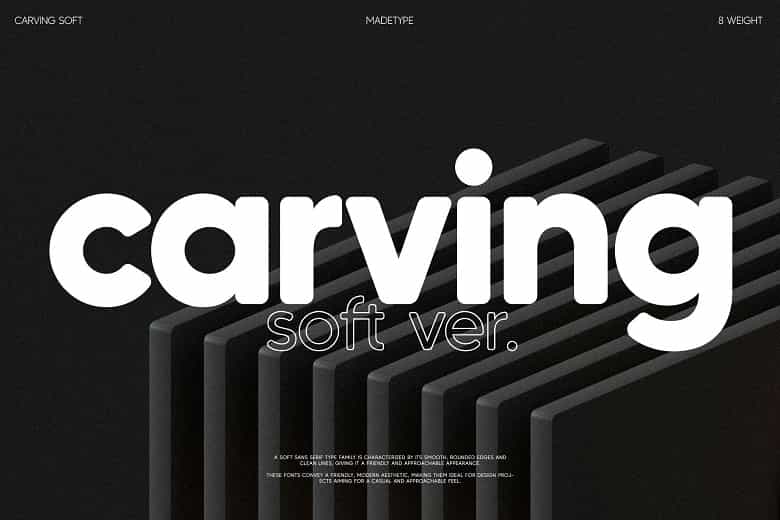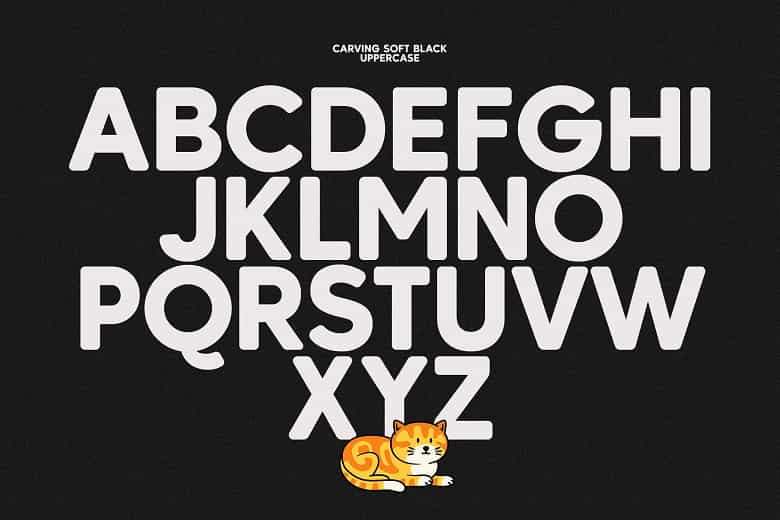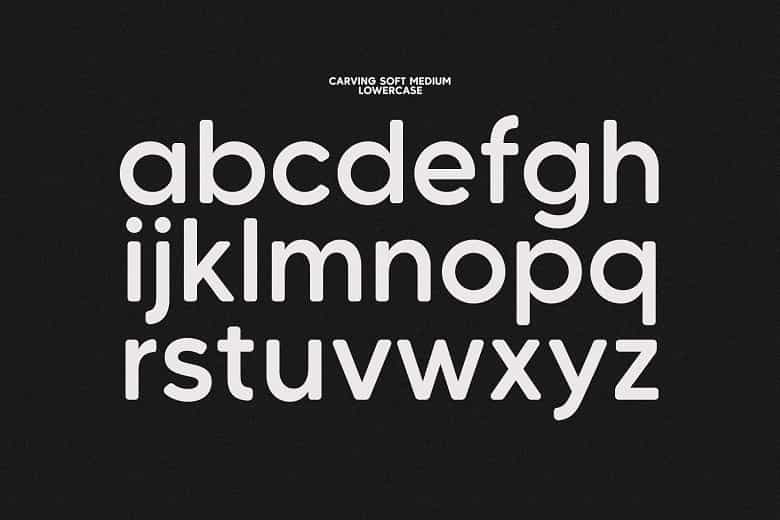
Carving Soft is a rounded edge sans serif font family style that has been designed by MadeType. Carving Soft will perfect for many project: clothes, magazines, logo, branding, photos, invitations, wedding invitation, quotes, blog header, posters, advertisements, postcards, books, websites, etc.